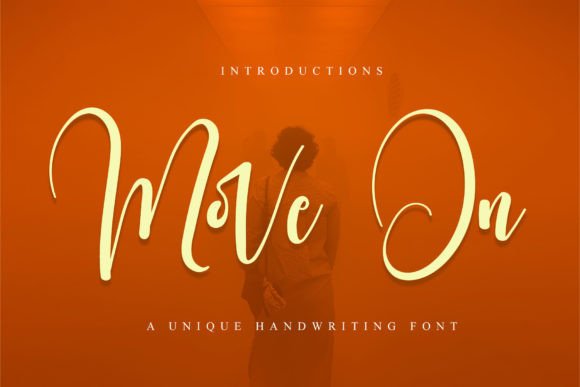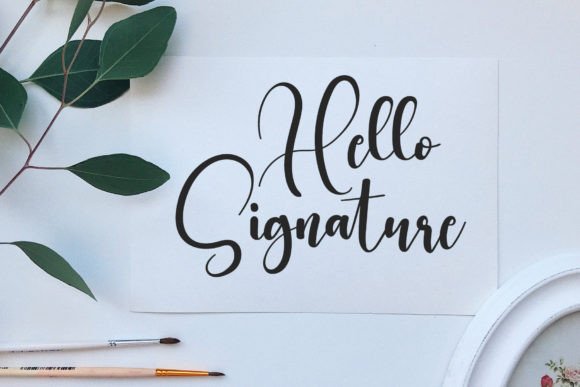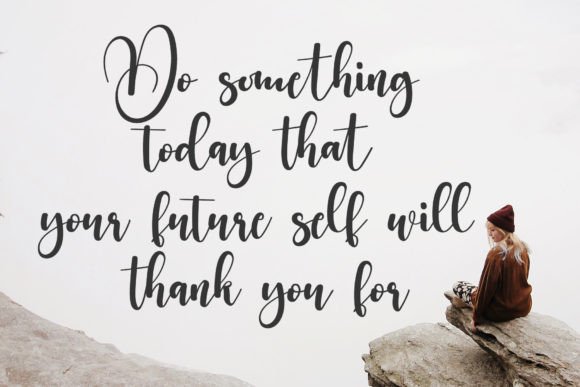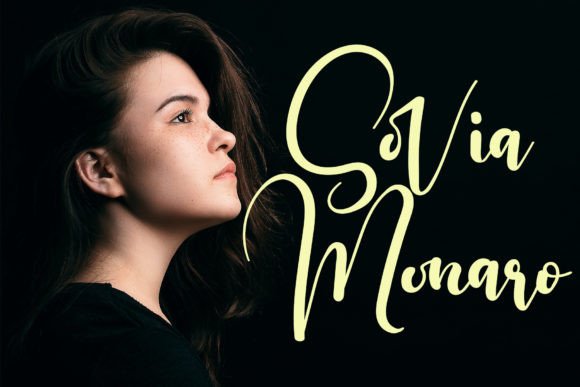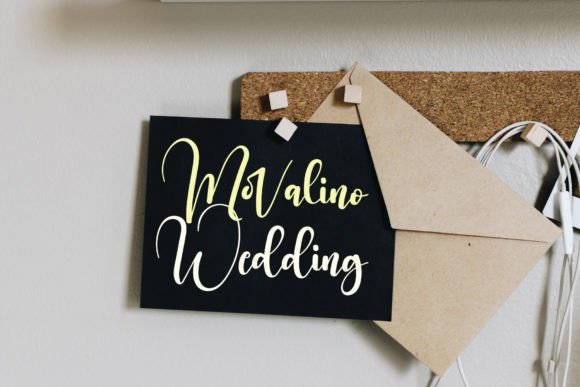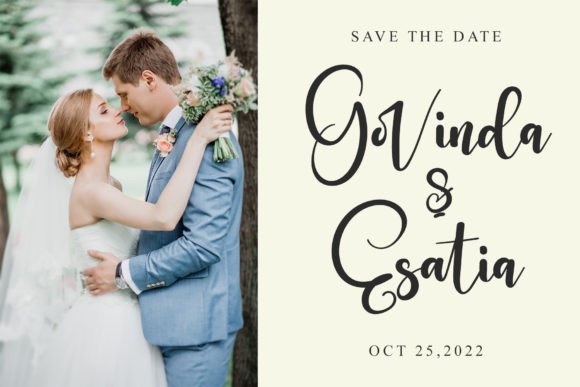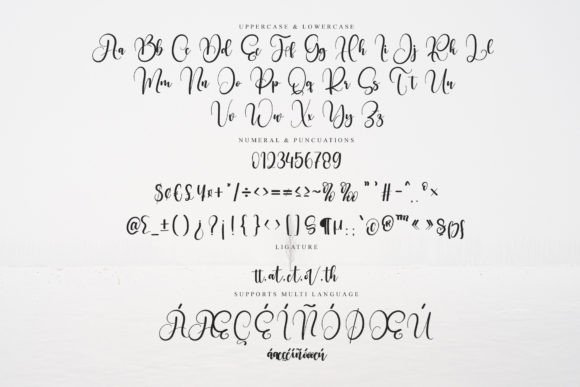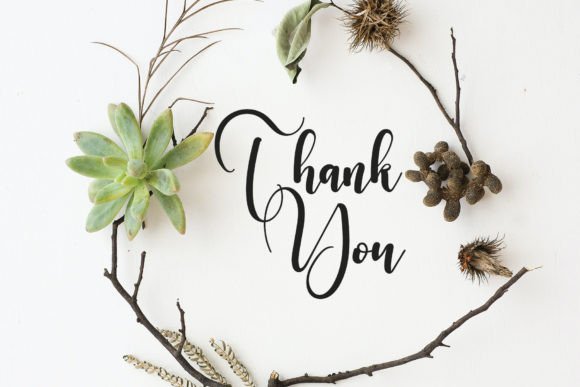
Move on Font
About Move on Font
Move On is a stylish and dainty script font. It is suitable for any projects such as logos, branding projects, labels, photography, watermark, special events, and all your other lovely projects that need a beautiful script taste.